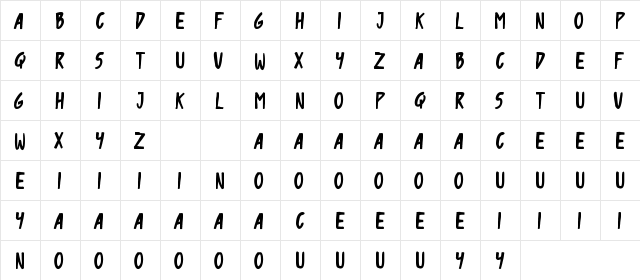
Vender Rustime Demo Display Grunge Regular
| Foundry | Edric Studio |
| Designer | Ali Alif Rahman & Suci Anita |
Design Context for Vender Rustime Demo Display Grunge Typeface
Vender Rustime Demo Display Grunge embraces imperfection — its rough, textured character adds raw authenticity to designs that want to feel lived-in and unconventional.
A strong fit for alternative music projects, graffiti-adjacent design, and anything that deliberately resists polish.
Pro Tip: Use Vender Rustime Demo Display Grunge at larger sizes where the texture and irregularity of each letterform can be clearly seen — it loses its character at small sizes.